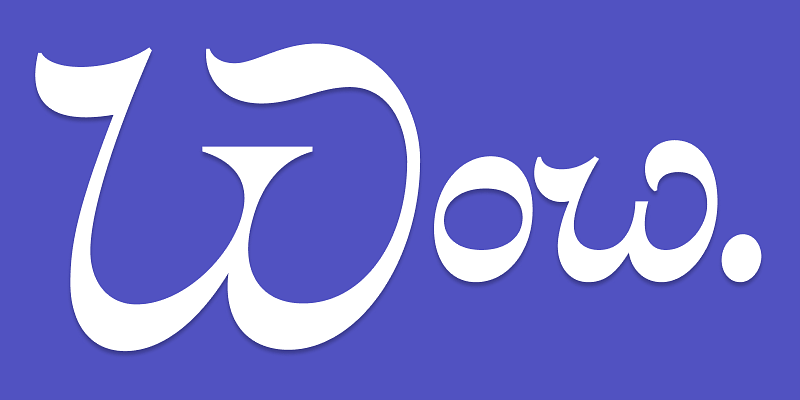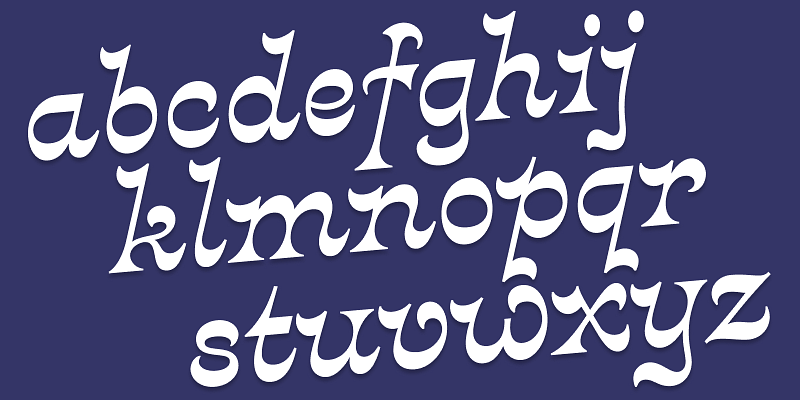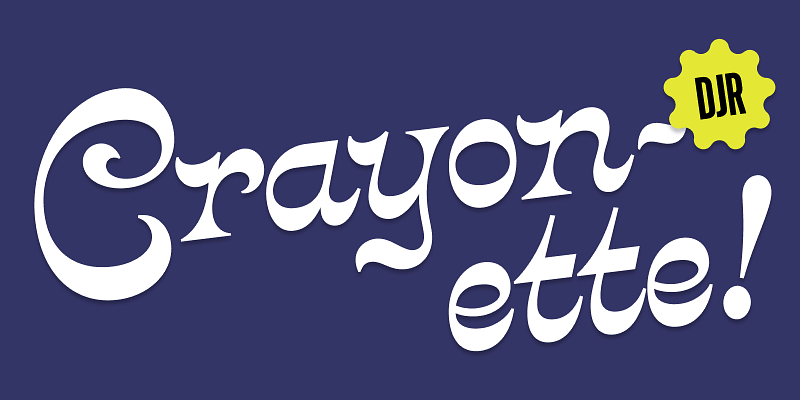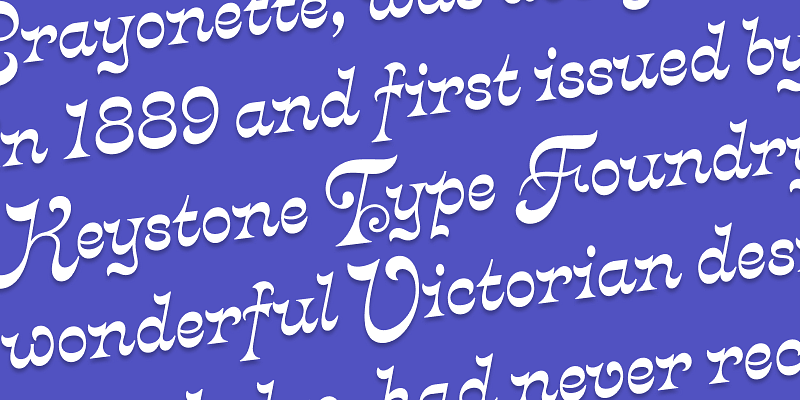
Crayonette DJR is a revival of Crayonette, a typeface designed by Henry Brehmer and first issued by Philadelphia’s Keystone Type Foundry. Until now, this typeface has survived without a digital interpretation that does it justice. This delightfully quirky italic features horizontal stress, luxurious curves, and oversize swash capitals. Crayonette DJR retains the key features and proportions of the original but improves its spacing and tames a few of the wilder letterforms.